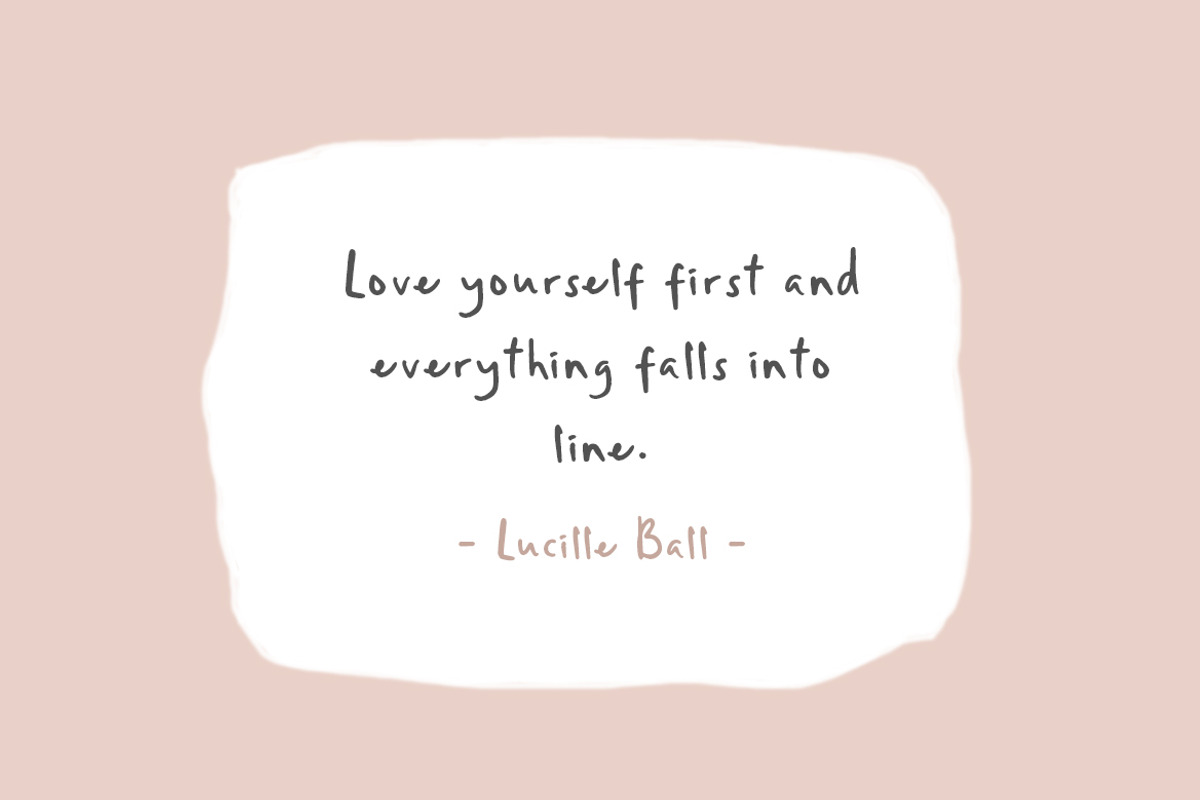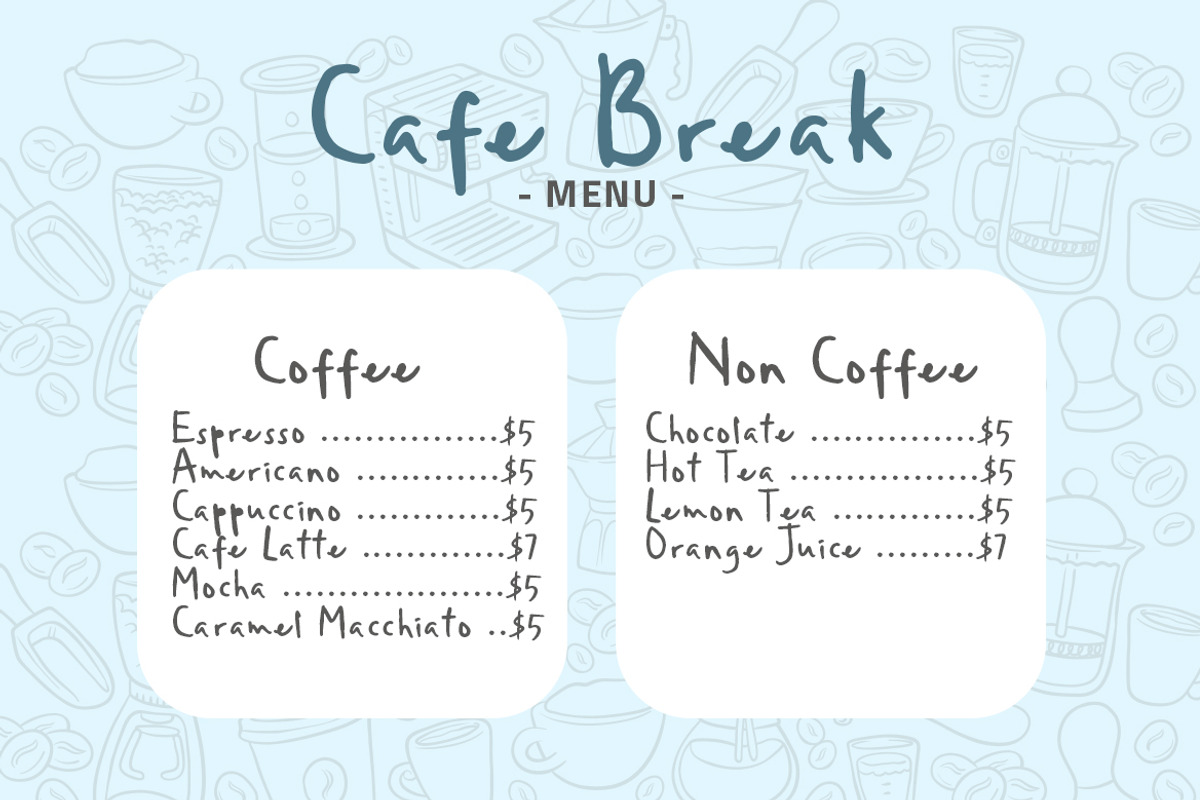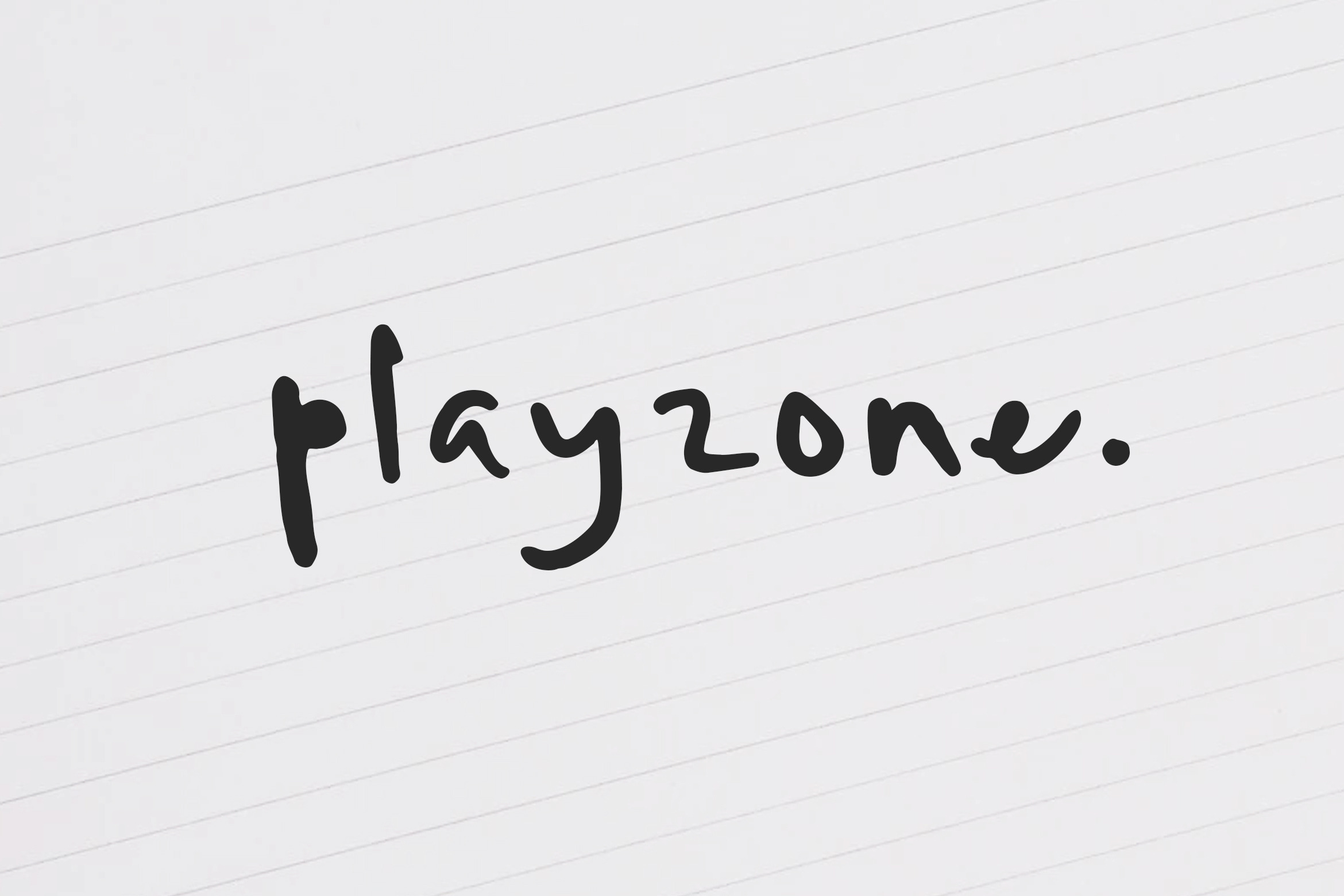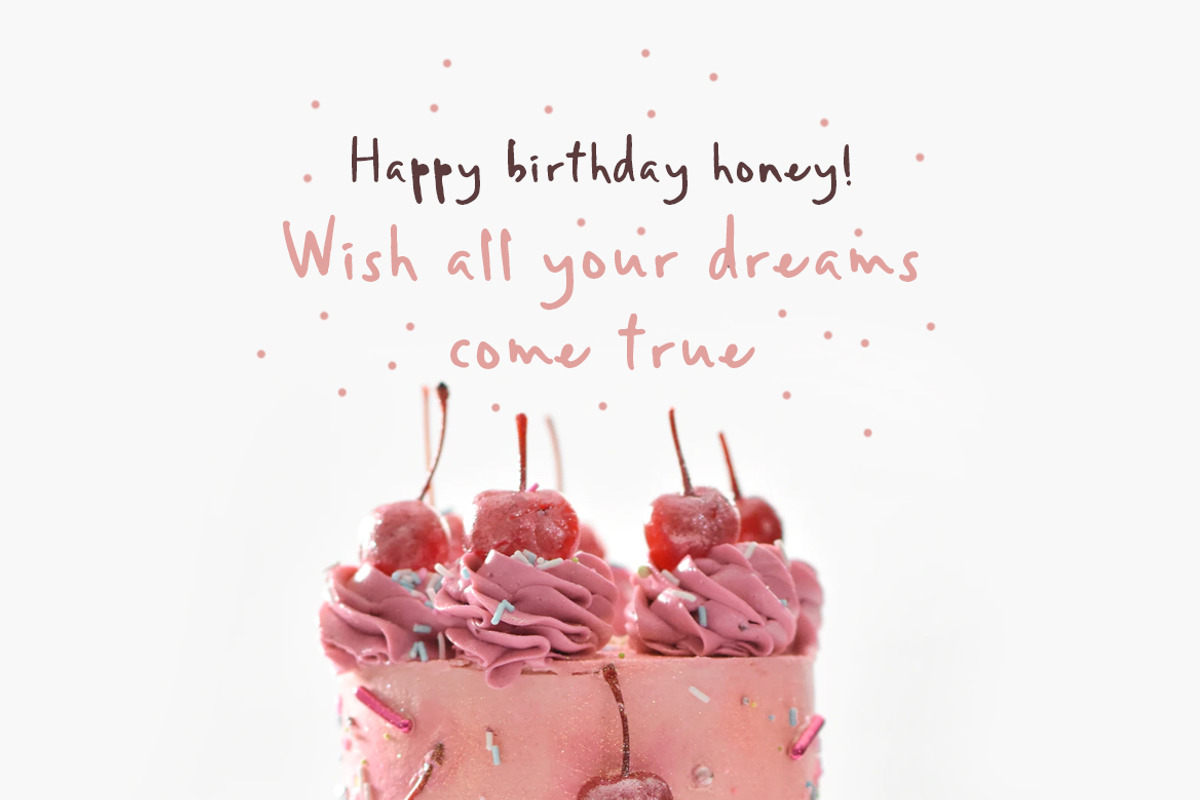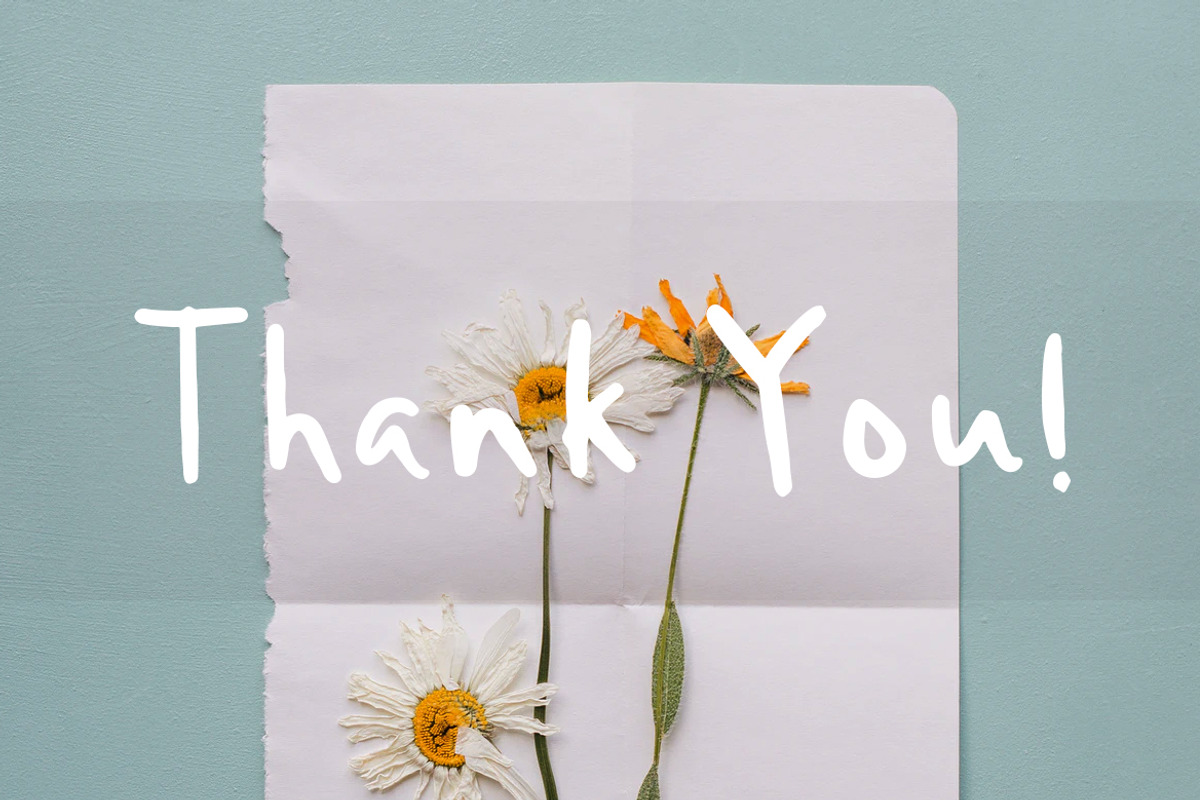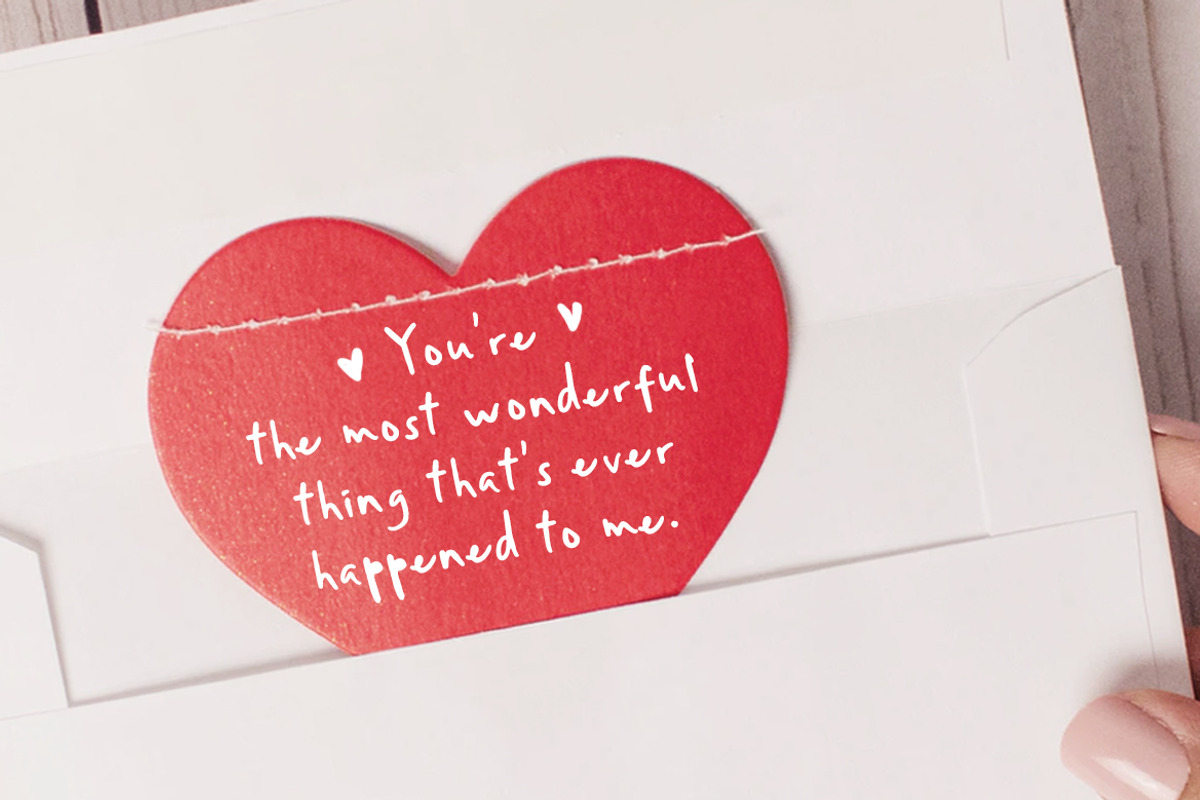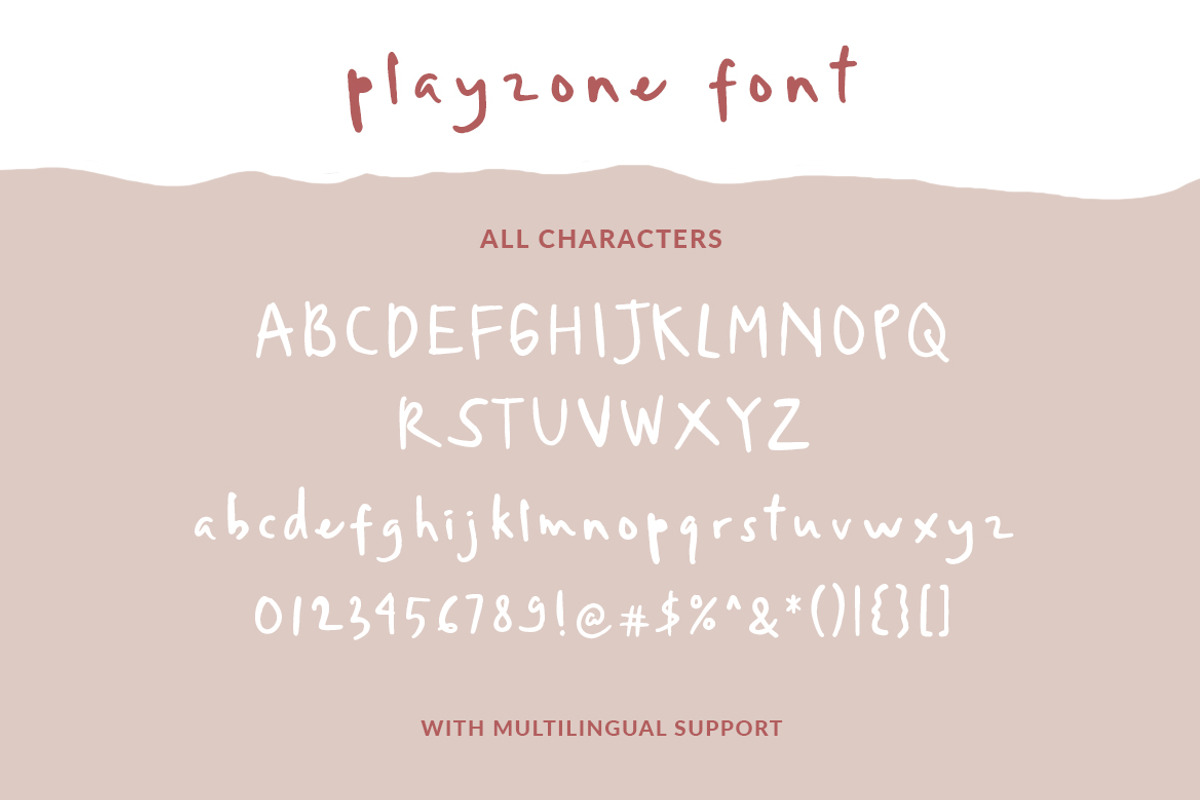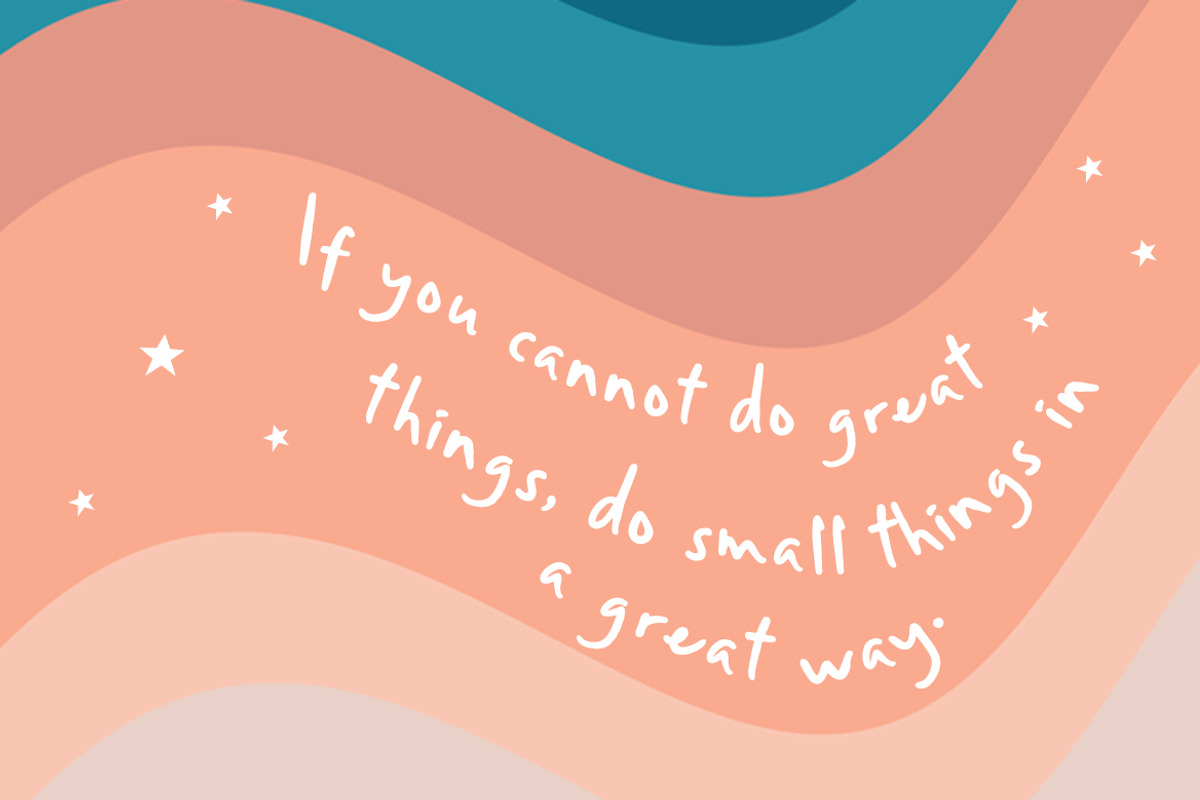
Playzone - Handwritten Doodle Font
Introducing Playzone - Handwritten Doodle Font, a new font with the style of the fun and doodle. Which is you can create a cute and fresh design like writing by hand.
Playzone is very suitable for logo design, kids t-shirts, birthday cards, cover books, magazines, flyers, quotes, packaging and of course much more.
This font comes in uppercase, lowercase, punctuations, symbols & numerals, and multilingual support.